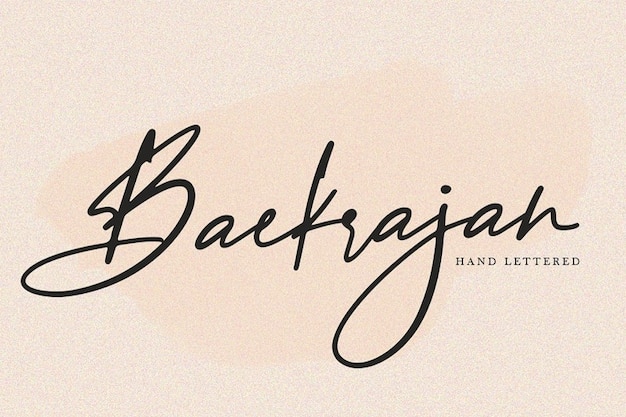
Baekrajan Font
"Baekrajan" font exudes timeless elegance with its exquisite calligraphic strokes, reminiscent of handwritten masterpieces. Each letter dances gracefully, embodying the artistry of fine penmanship. Perfect for adding a touch of sophistication to invitations, cards, and any project where elegance is paramount.